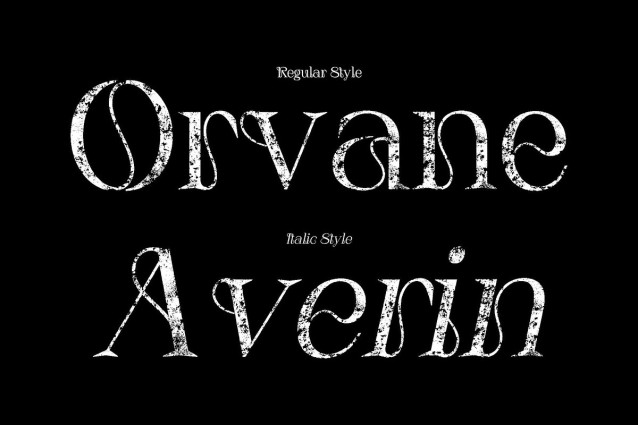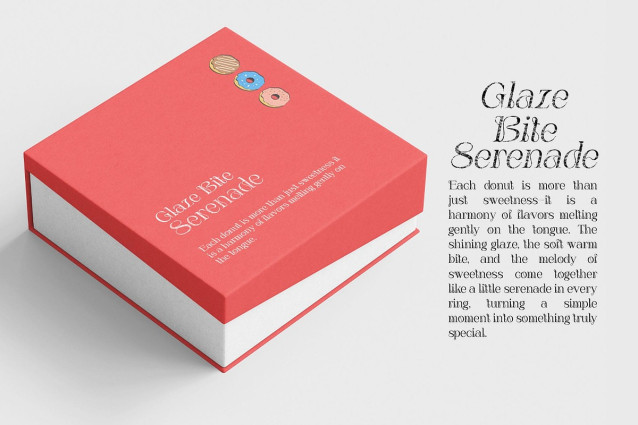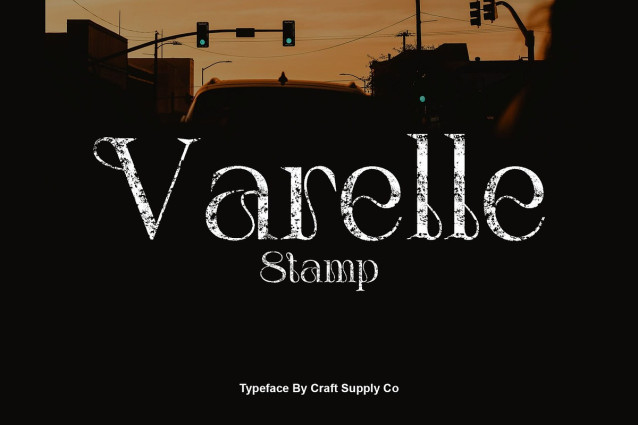
Varelle Stamp Font
Varelle Stamp Font – This is an Art Nouveau inspired serif font that celebrates the harmony of elegance and creativity. Its delicate organic curves flow with a natural rhythm, while the refined serif structure ensures balance and readability. The design captures the essence of sophistication, making it ideal for projects that demand beauty and grace.
Stamp Texture for Depth and Authenticity The defining feature of stamp effect, which adds depth, richness, and a handcrafted personality to the font. This subtle texture evokes the feel of vintage printmaking, creating a historic charm that makes your designs stand out. The stamped quality not only enhances its visual presence but also infuses each letter with artistic authenticity.
Perfect for Editorials, Posters, and Branding Whether used in editorials that highlight artistic narratives, posters that command attention, or branding projects that require a unique identity, adapts effortlessly. Its combination of expressive curves and textured finish ensures that it performs equally well in modern creative layouts.
Captivating Style with Historic Character Offers more than just aesthetic beauty it conveys a story. The Art Nouveau influence ties it to a period of cultural richness, while the modern refinement keeps it relevant in contemporary design. This blend of history and creativity makes it captivating and versatile, suitable for designers who value elegance, originality, and expressive typography.